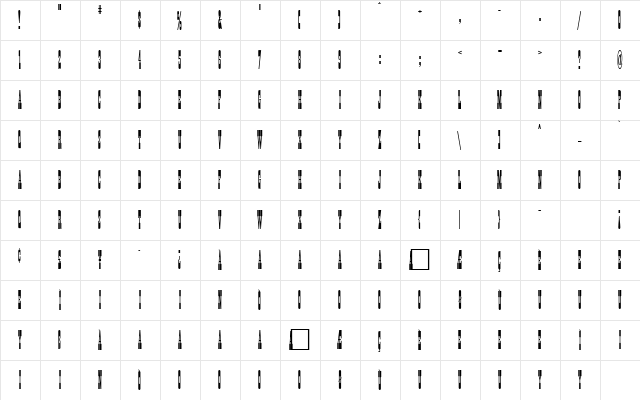
Longwood Regular
Design Context for Longwood Typeface
Longwood echoes the hand-painted signage and woodblock typography of the American frontier, with a warm, rugged personality.
A natural fit for craft spirits, ranch branding, rodeo events, and Americana-inspired design work.
Font Pairing: Combine Longwood with a simple slab or neutral sans — period-accurate companions reinforce the vintage feel without competing for attention.
Pro Tip: Use Longwood for short, impactful bursts of text — it shines in poster headlines and product names rather than extended copy.